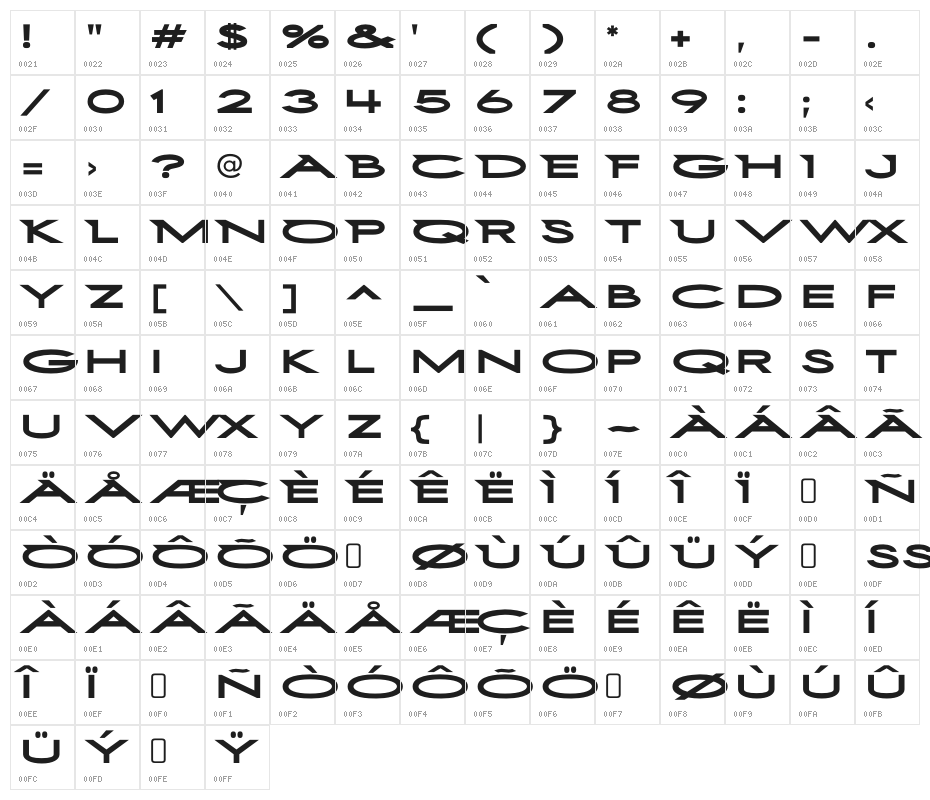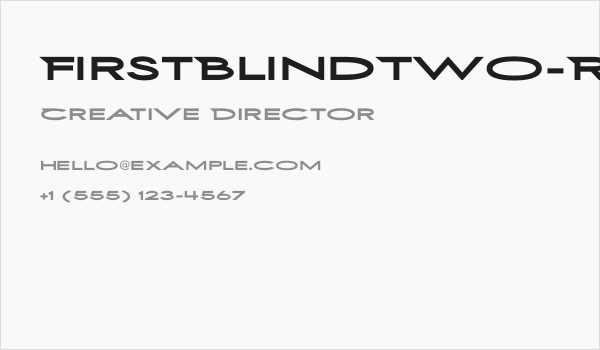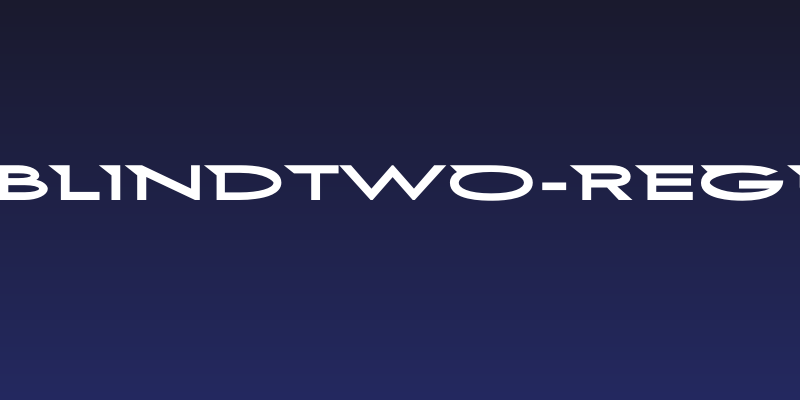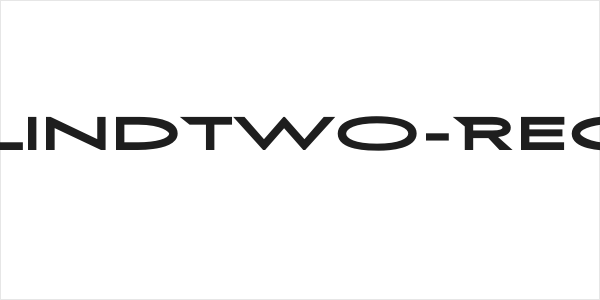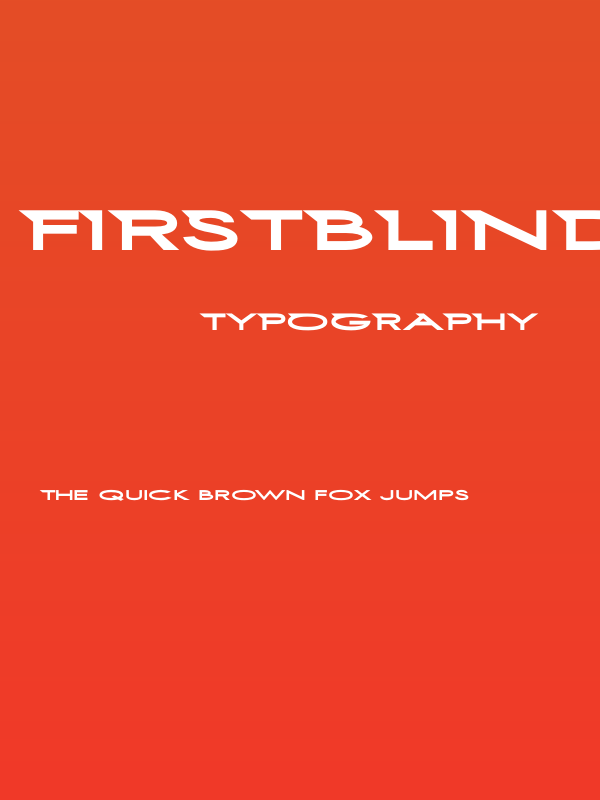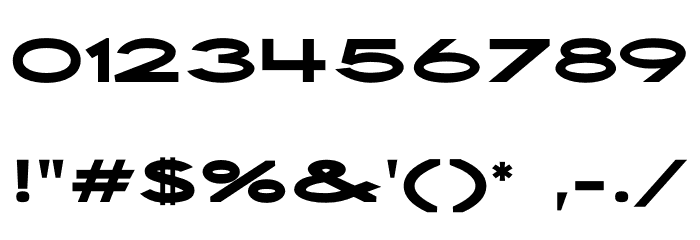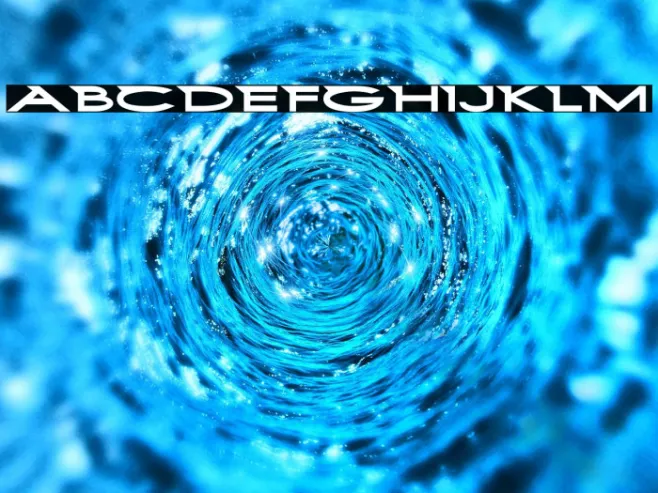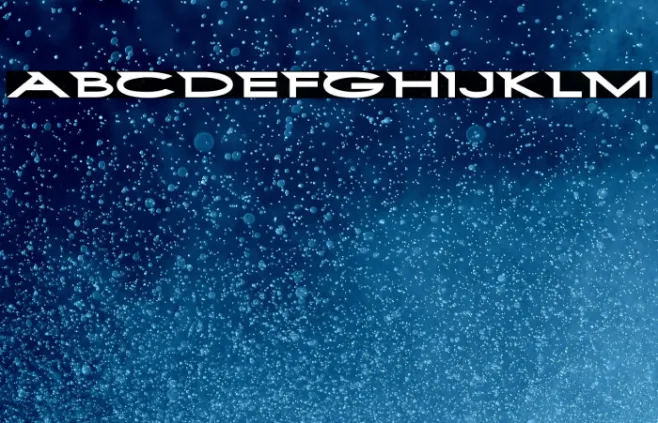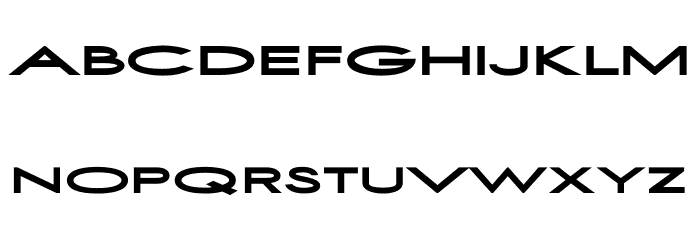
FirstBlindTwo-Regular Font
FirstBlindTwo-Regular Description
This font features a modern and sleek design with a futuristic appeal. The characters are bold and have a geometric structure, with sharp angles and clean lines that convey a sense of precision and clarity. The uppercase letters are uniform in height, creating a cohesive and balanced look. The lowercase letters maintain the same geometric style, ensuring consistency throughout the typeface. Numbers are distinct and easy to read, while special characters are designed to complement the overall aesthetic. The font's style is ideal for projects that require a contemporary and cutting-edge appearance.
| Use Case | Headlines, Logos, Digital Interfaces |
| Proposed Projects | Ideal for technology branding, modern advertising, digital interfaces, and futuristic design projects. |